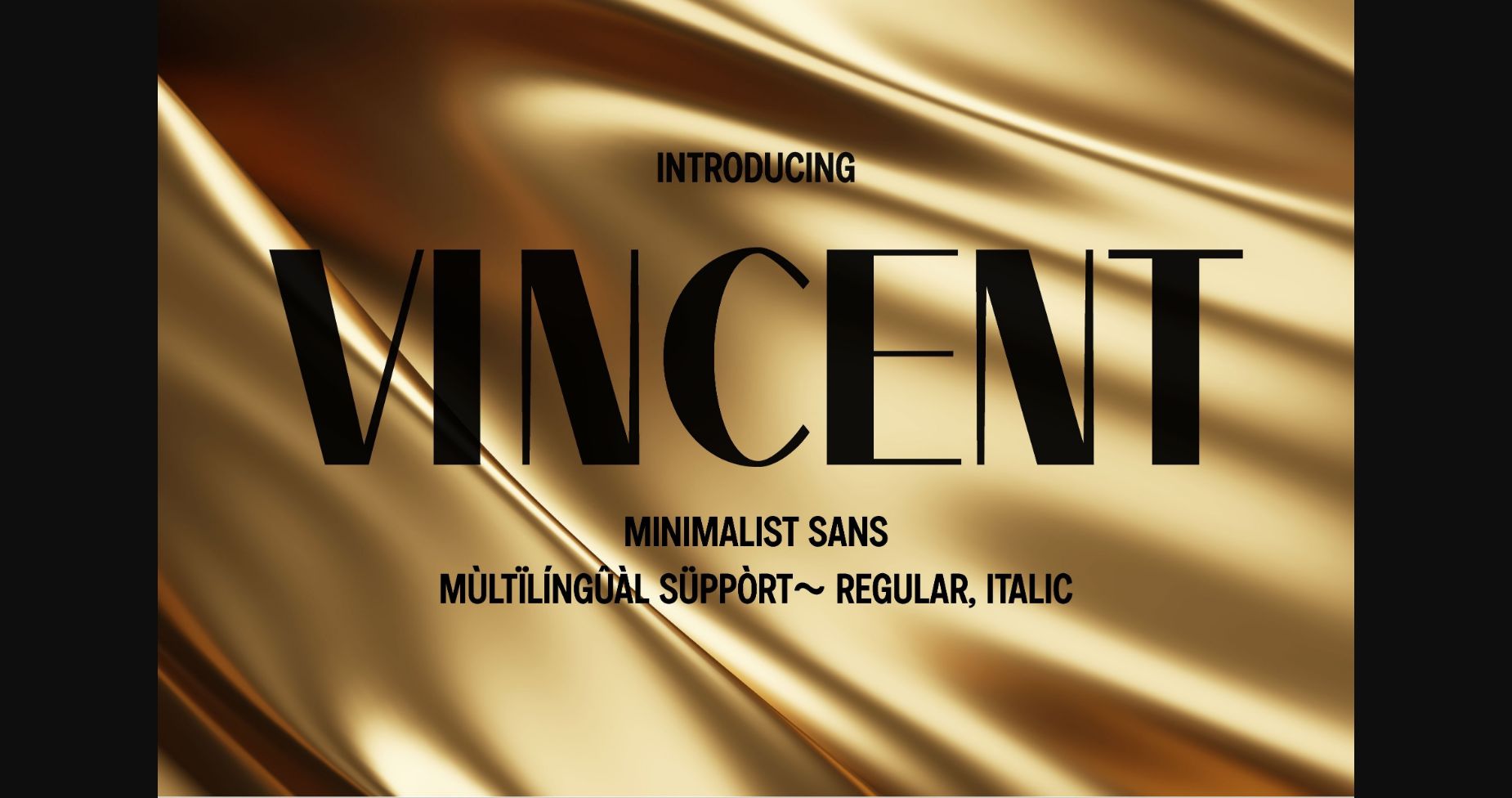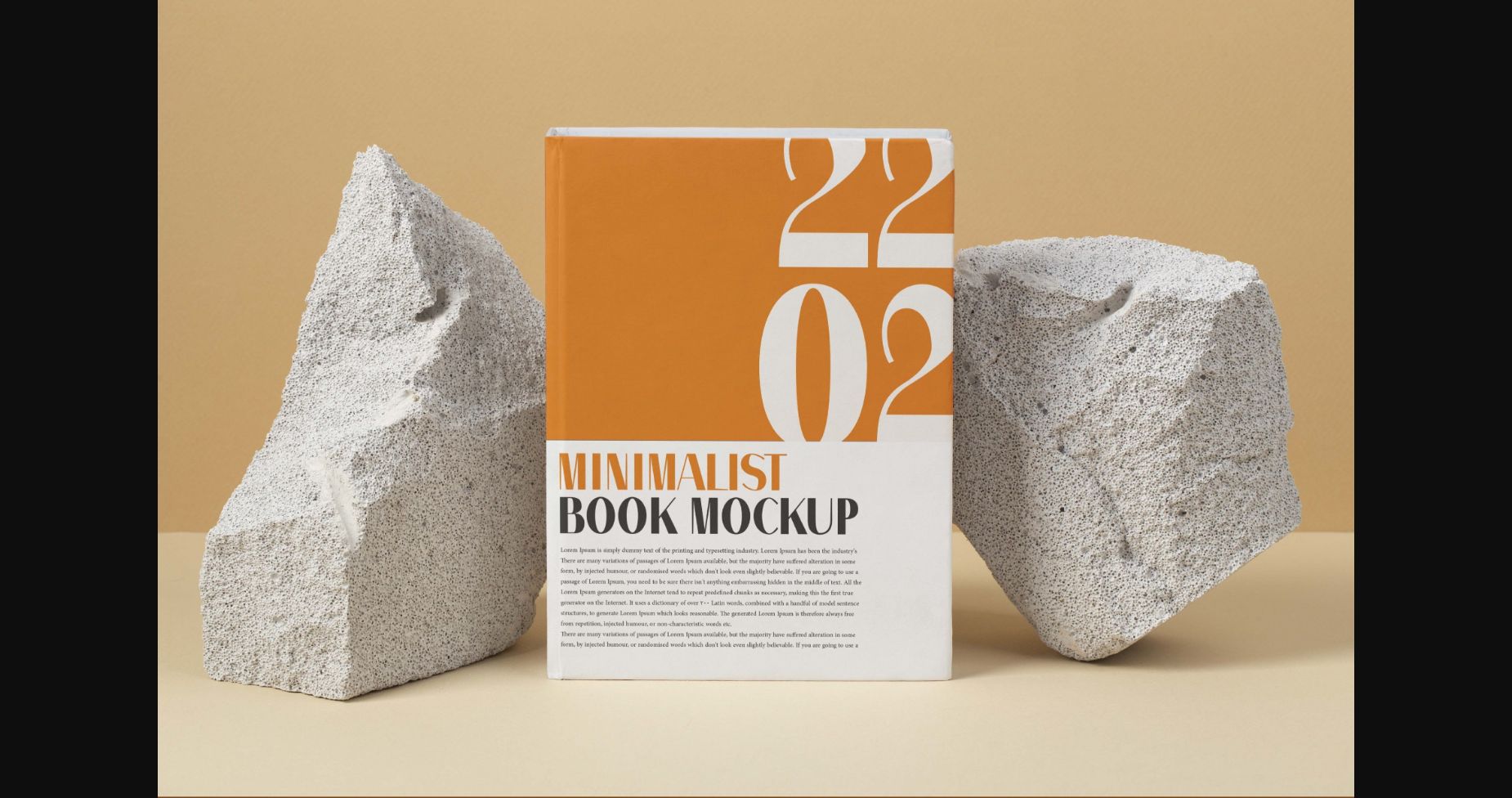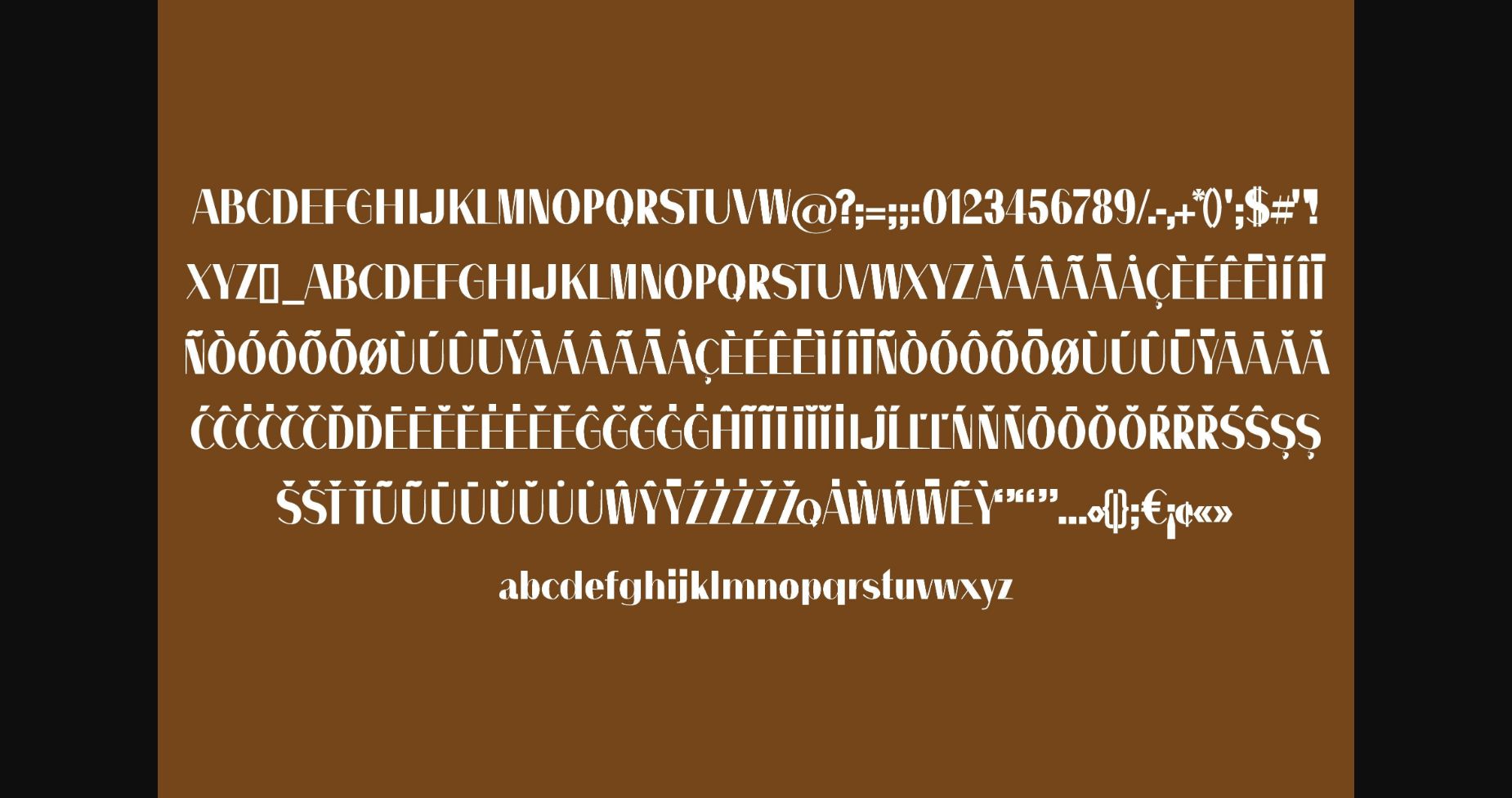
Vincent Font
About Vincent Font
Vincent is a modern and clean still luxurious sans serif typeface. it was designed and thought very well to make your headlines stand out and add much value to your creations. it suits a lot of contexts such as packaging, poster, quote, web, magazine, newspaper, movie titles, display advertising, social media posts, cosmetics, and perfume design.